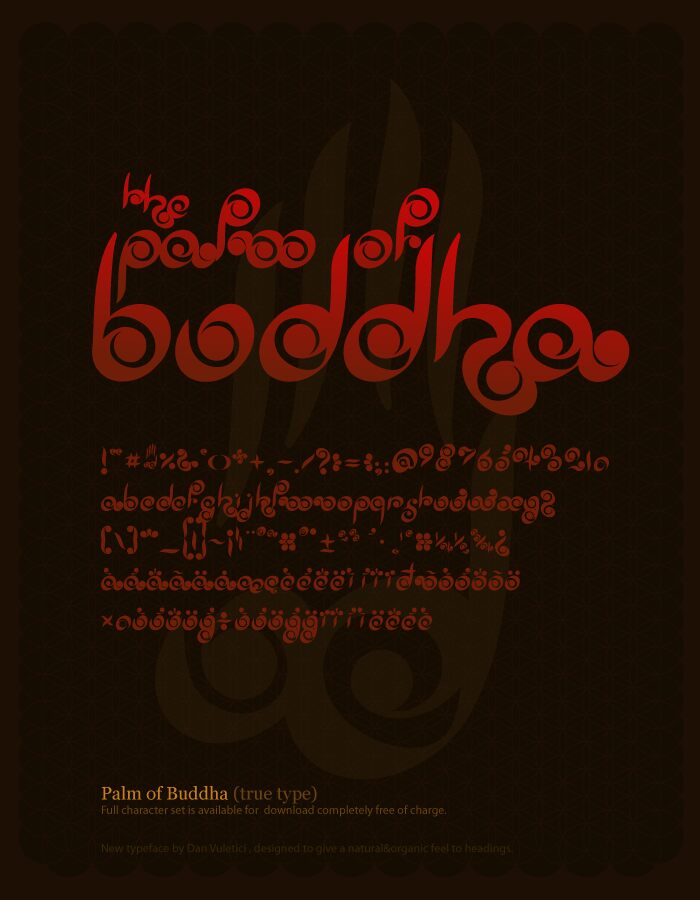
Palm of Buddha by Dan Vuletici is a free psychedelic display font built from swelling strokes and tightly curled letterforms. Repeated spirals and rounded loops turn the lettering into a continuous chain of soft, bulbous shapes with a clear 1960s and 1970s counterculture flavor and a compact, tumbling rhythm.
A concert poster is its most convincing setting, since the rolling forms echo vintage rock graphics and hand-drawn gig lettering. It also suits album artwork, festival merchandise, and playful drink packaging. For branding, the circular motifs can become part of a complete illustrated emblem rather than serving as ordinary product lettering.